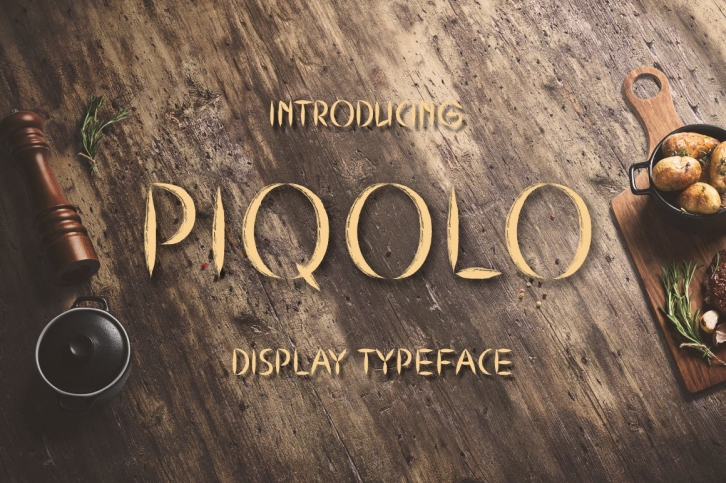
Piqolo typeface is represented by a sharp brush with fine strokes. If you’re looking for a font with earthy and artsy vibes, this is the one for you. Piqolo works great on posters, flyers, t-shirts, titles for headings, menus, and as a logotype.
Uppercase and lowercase, numerals and punctuations, ligatures, and stylistic alternates.